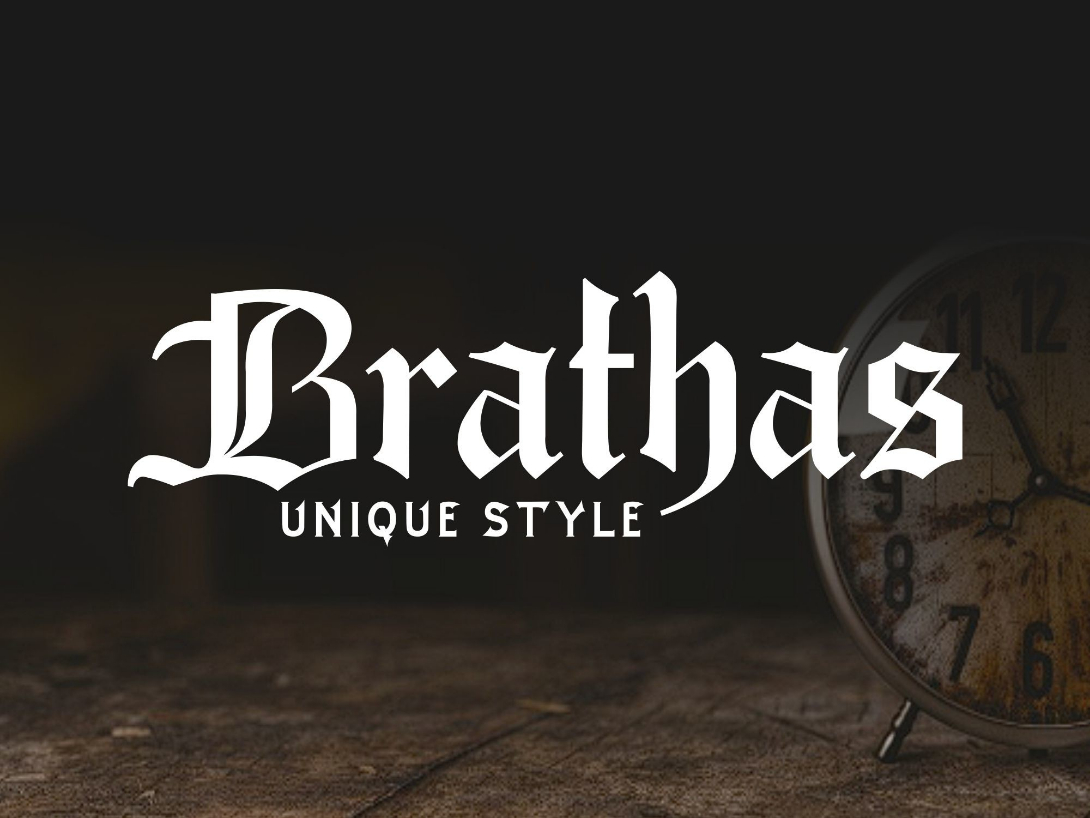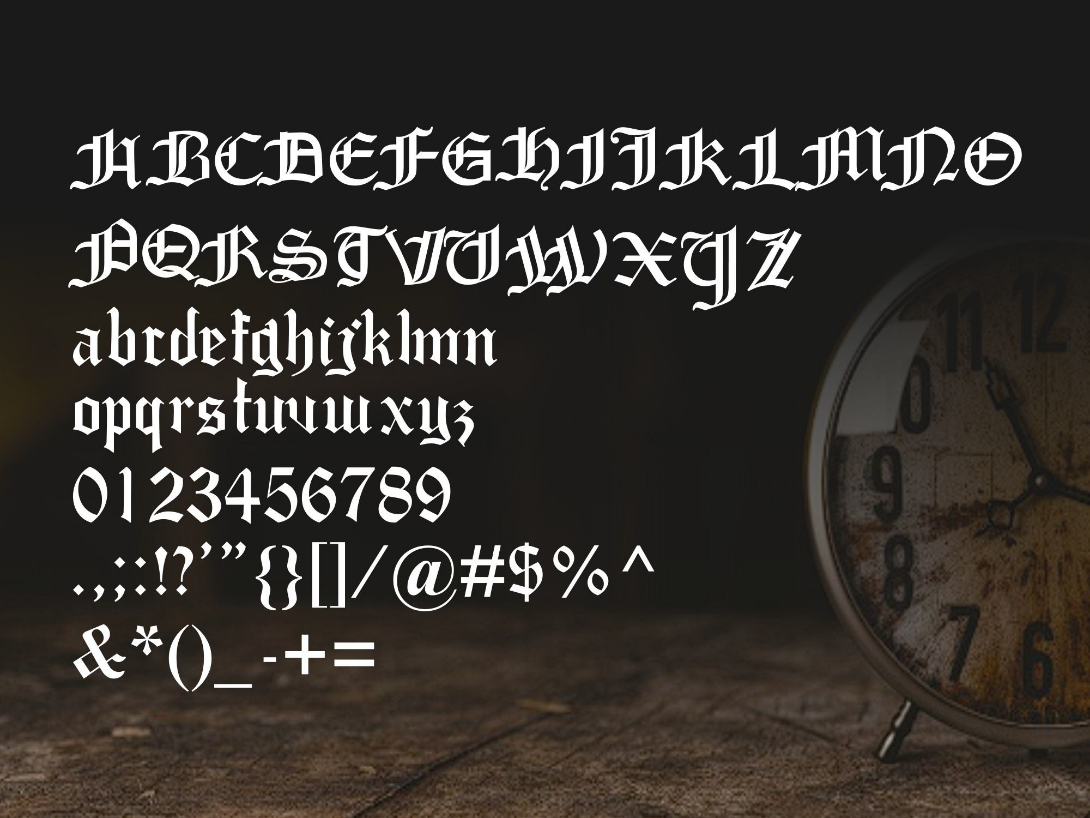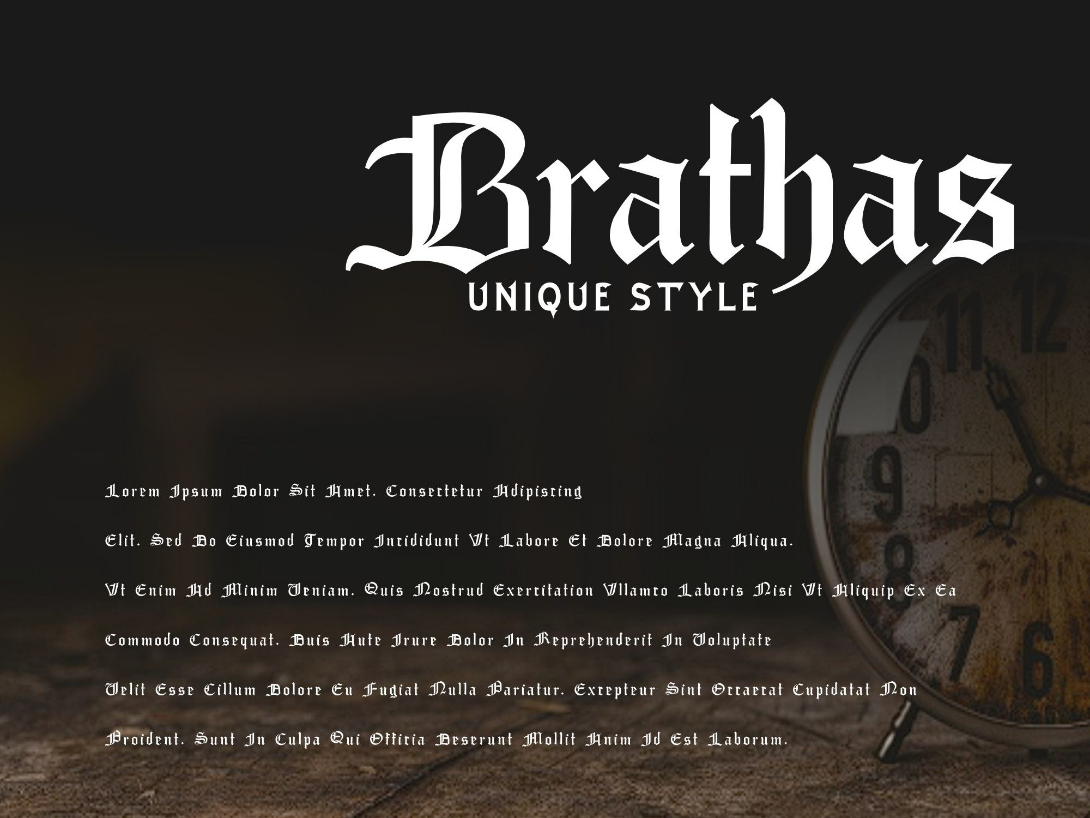
Brathas Font
Introducing **Brathas**, a modern and eye-catching font.
Perfect for you who needs a typeface for logo designs, magazine, social media, brochure, and many more.